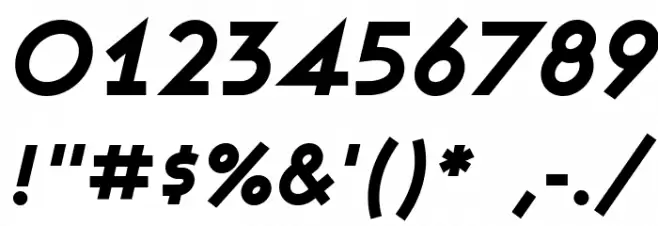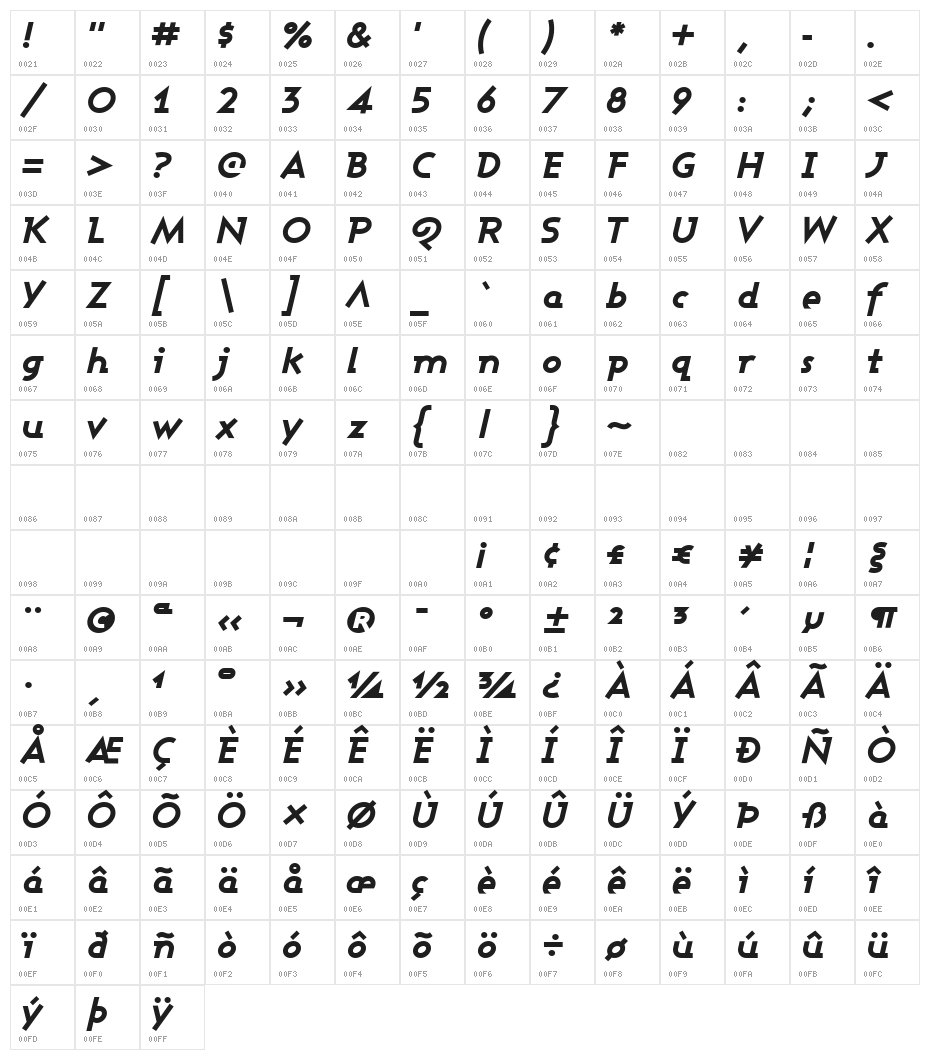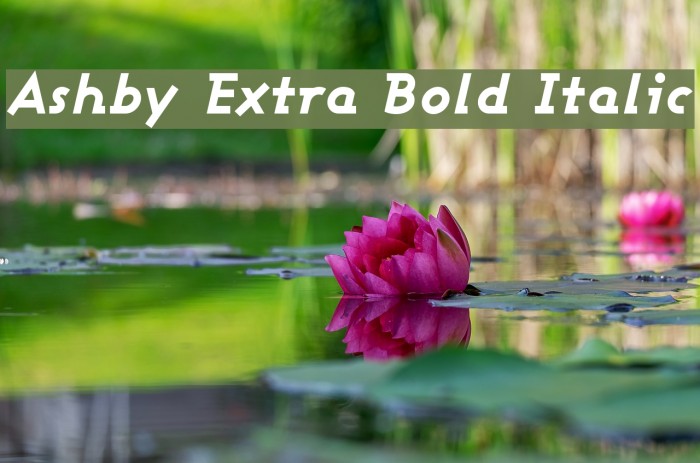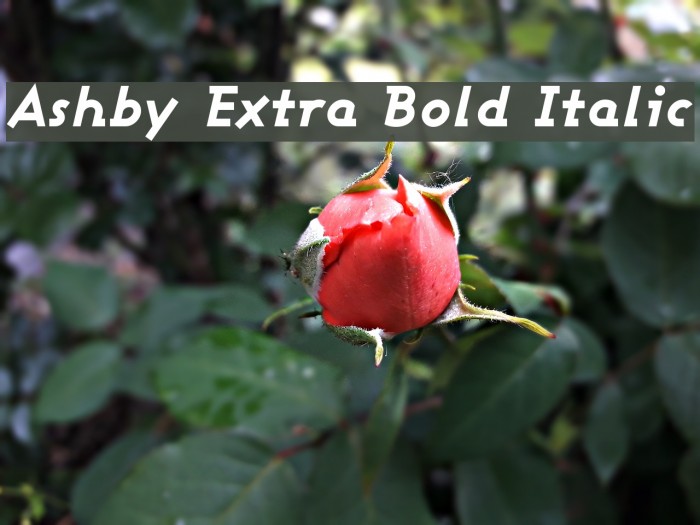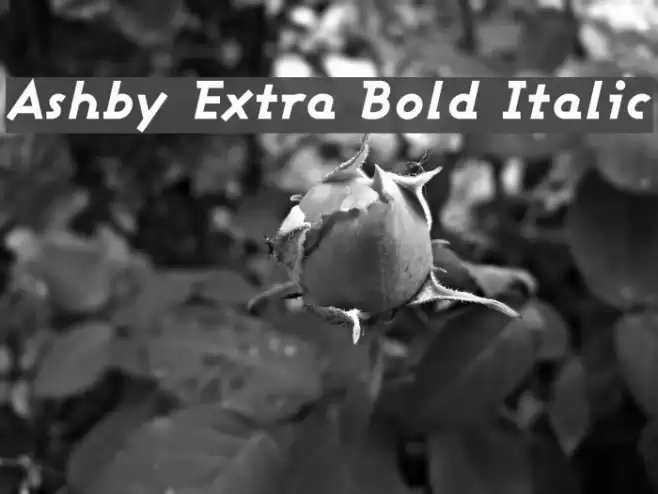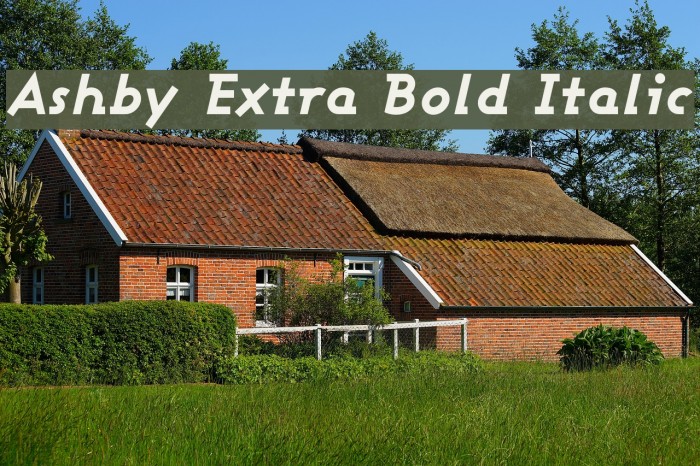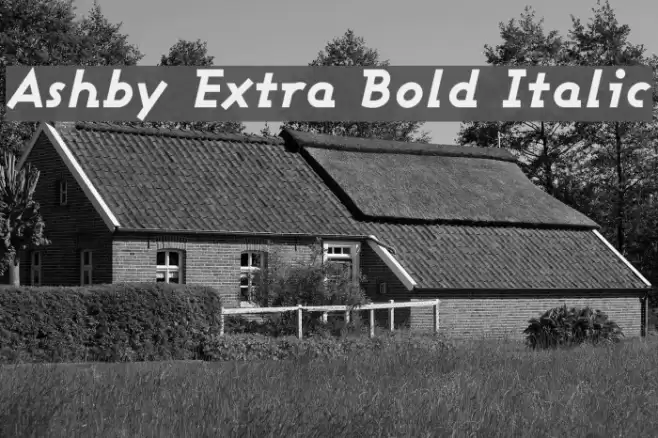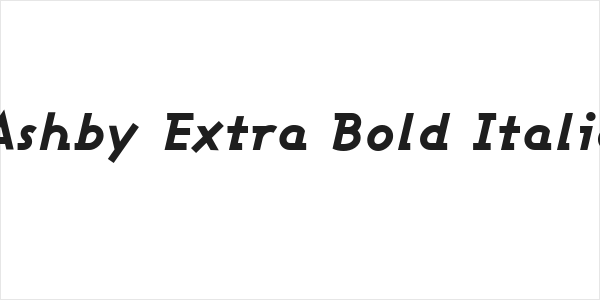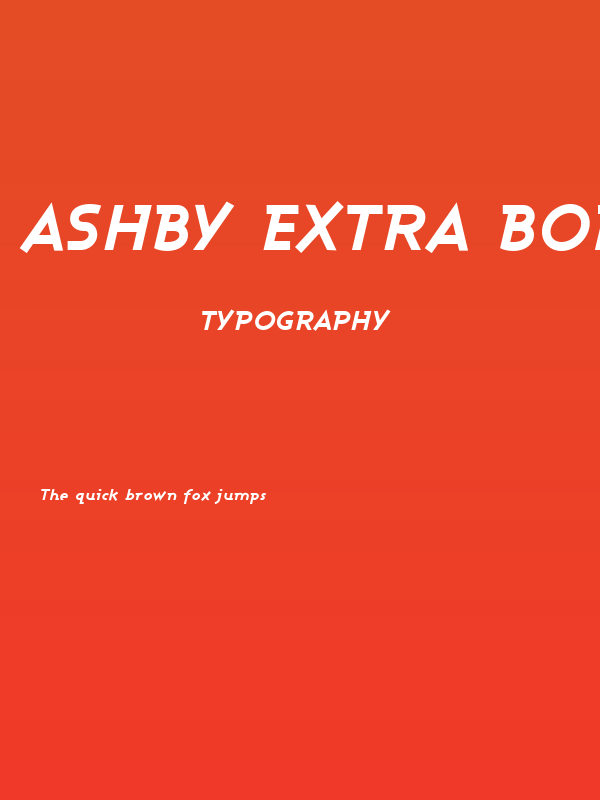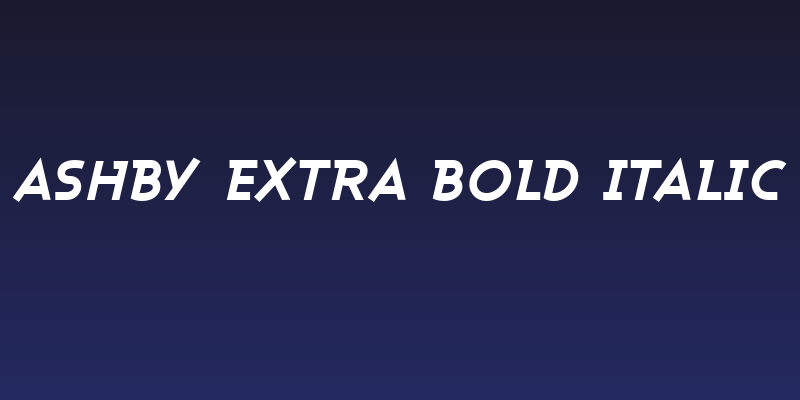
Ashby Extra Bold Italic Font
Ashby Extra Bold Italic Description
This font features a bold and italicized style, characterized by its strong, dynamic strokes and slanted orientation. The uppercase letters are robust and commanding, while the lowercase letters maintain a consistent flow with a slight slant, enhancing readability. The numerals are distinct and bold, matching the overall aesthetic of the font. Special characters are crafted with precision, maintaining the bold and italicized theme. The font's design is modern and eye-catching, making it suitable for various creative applications.